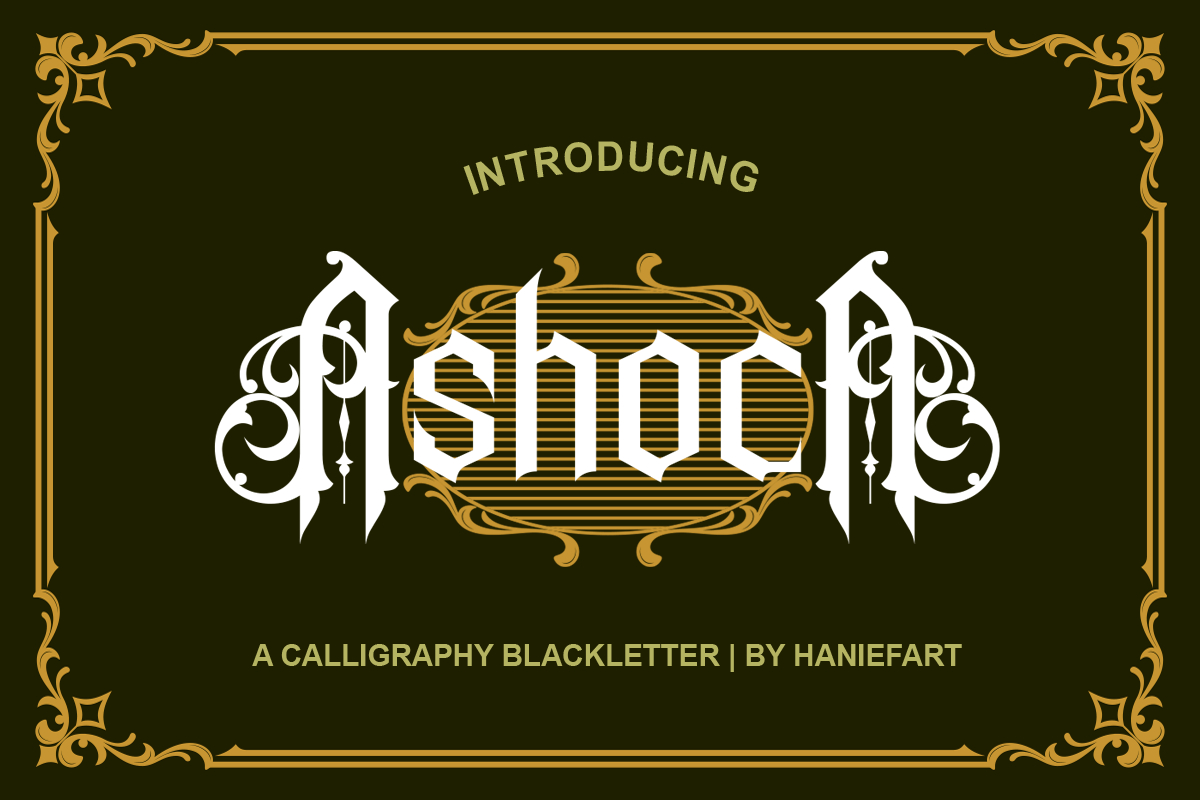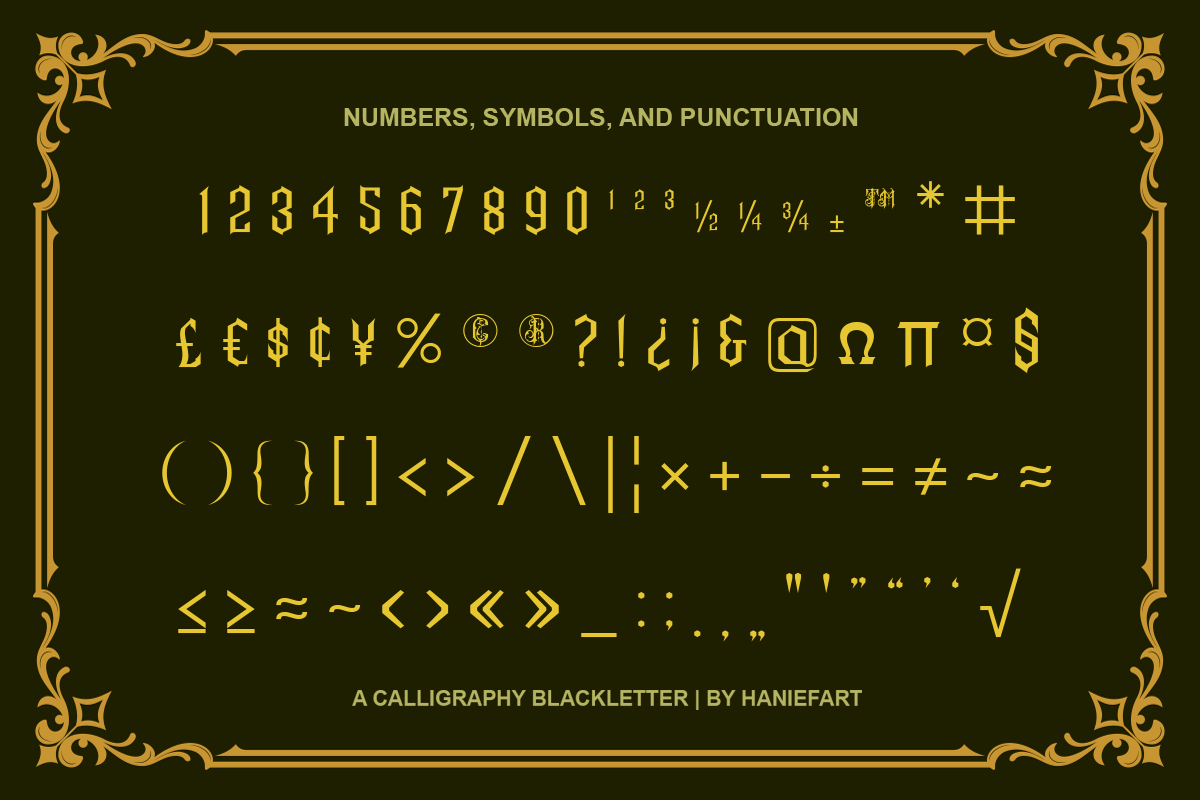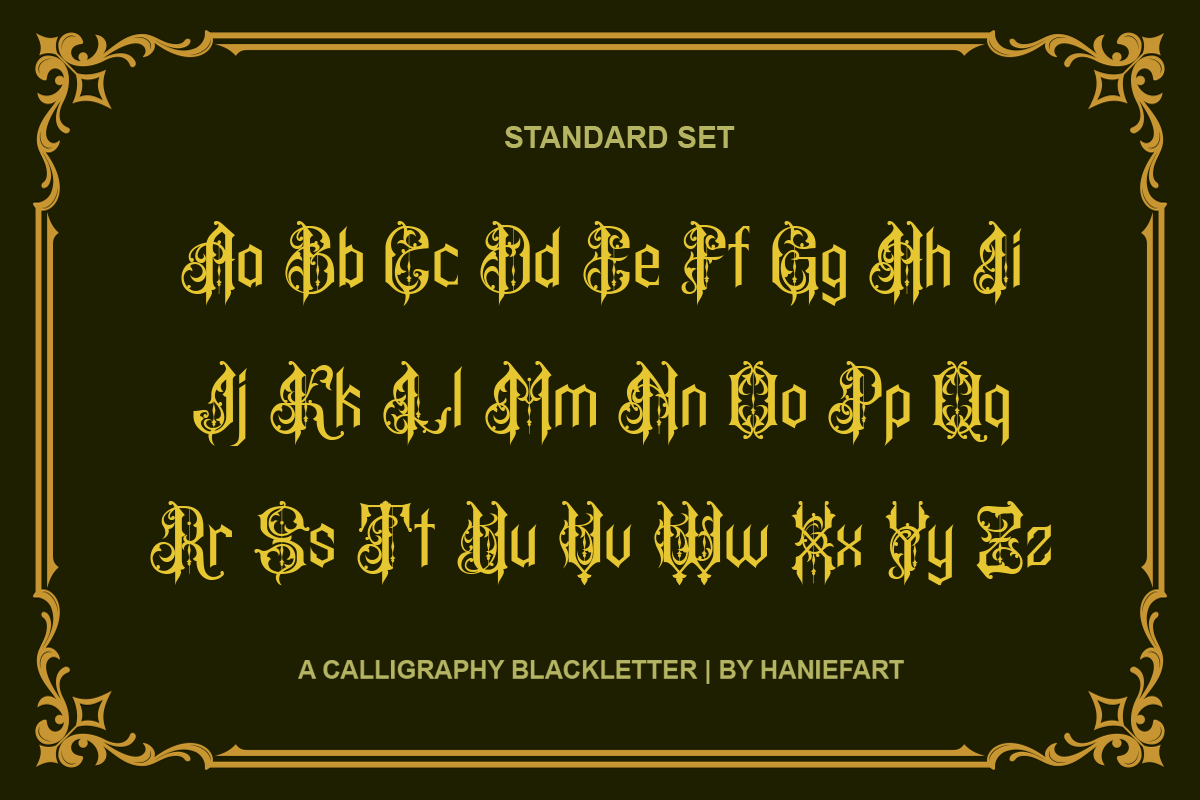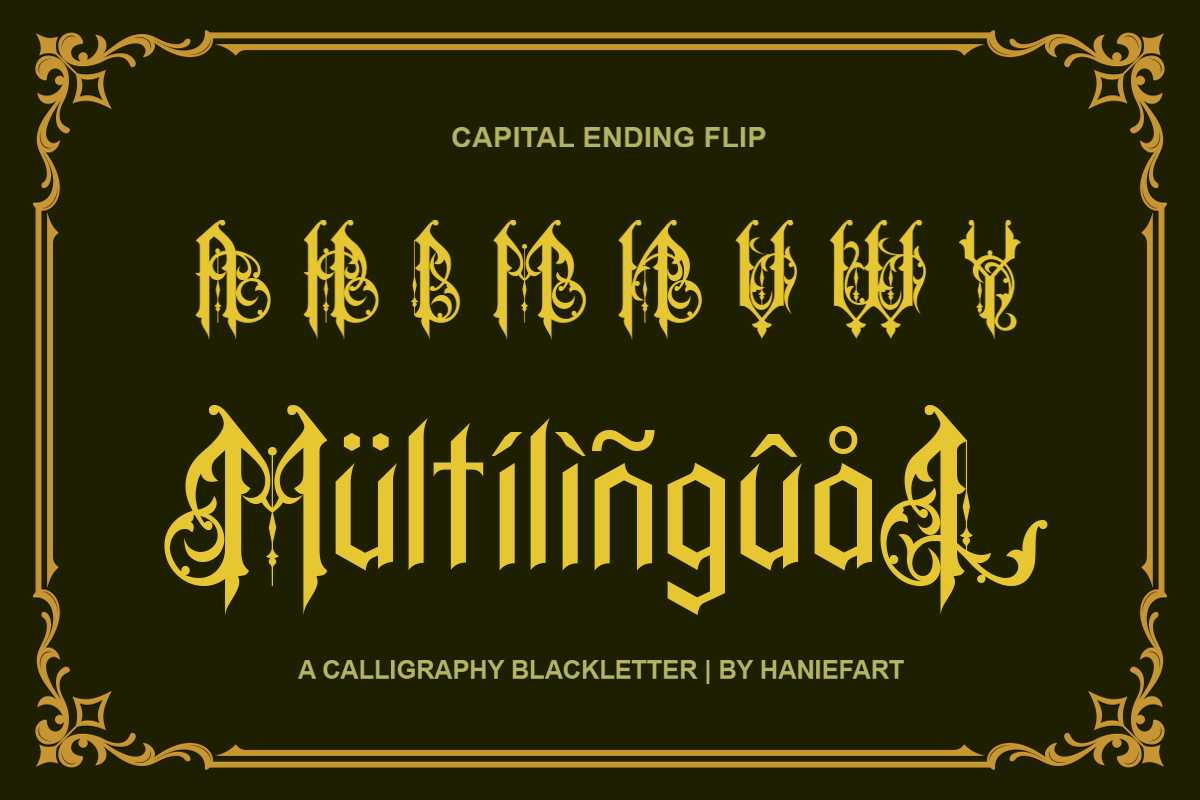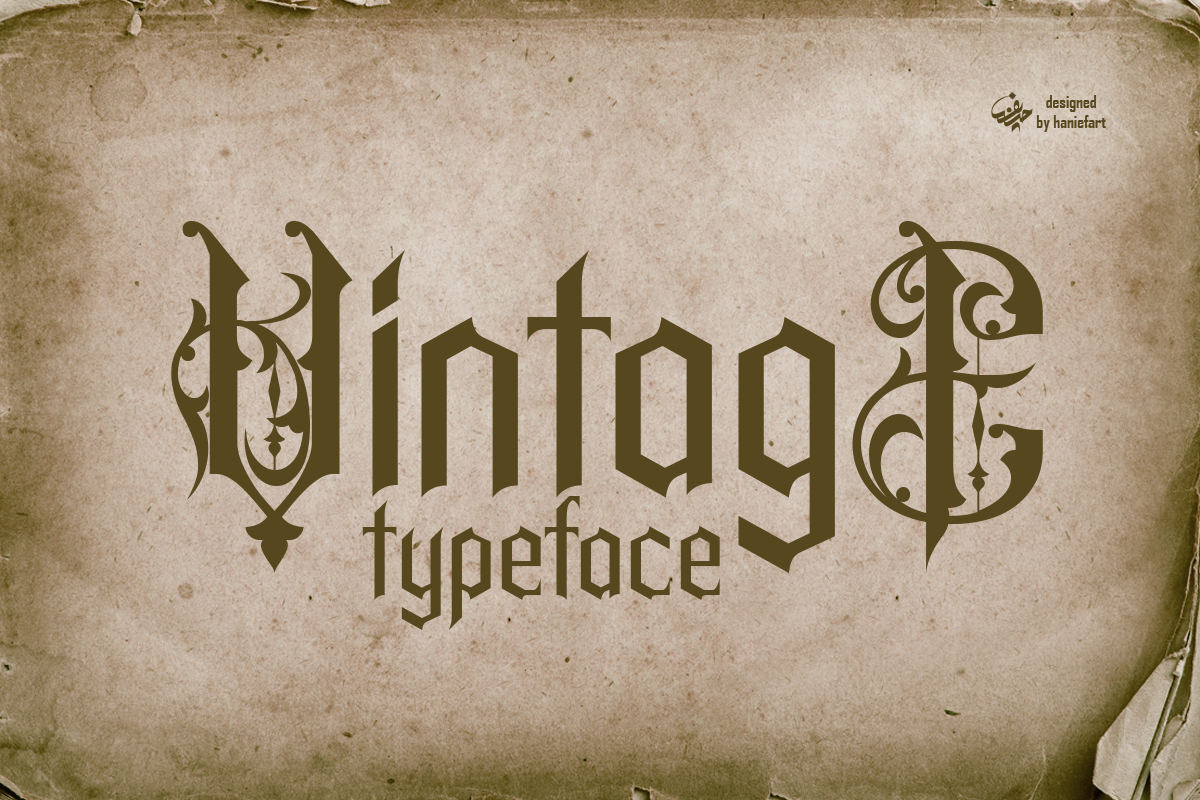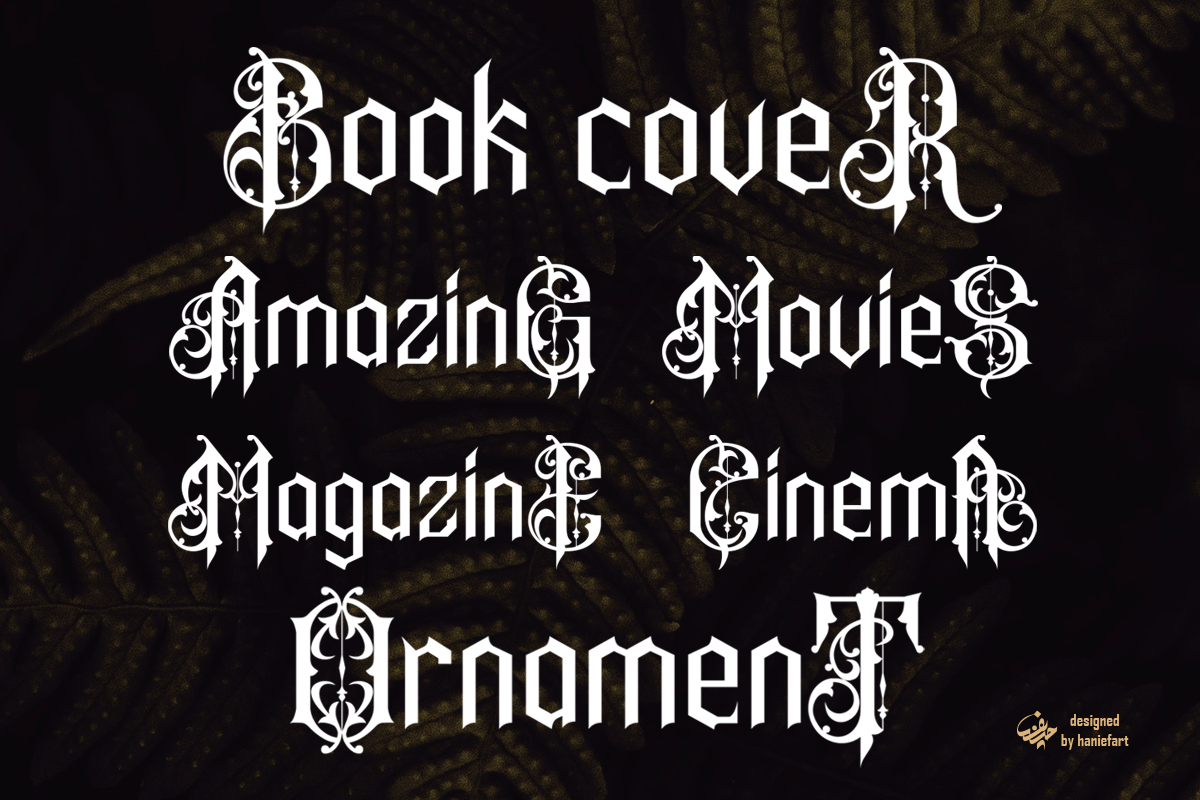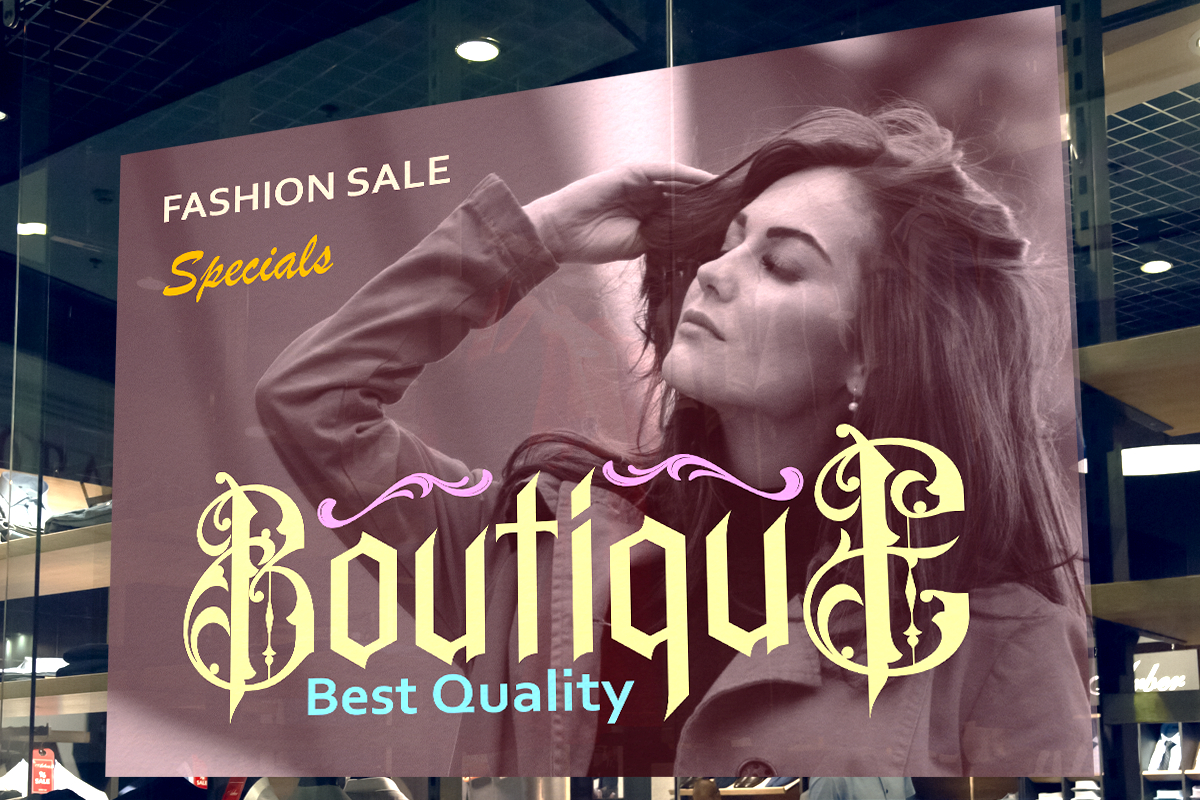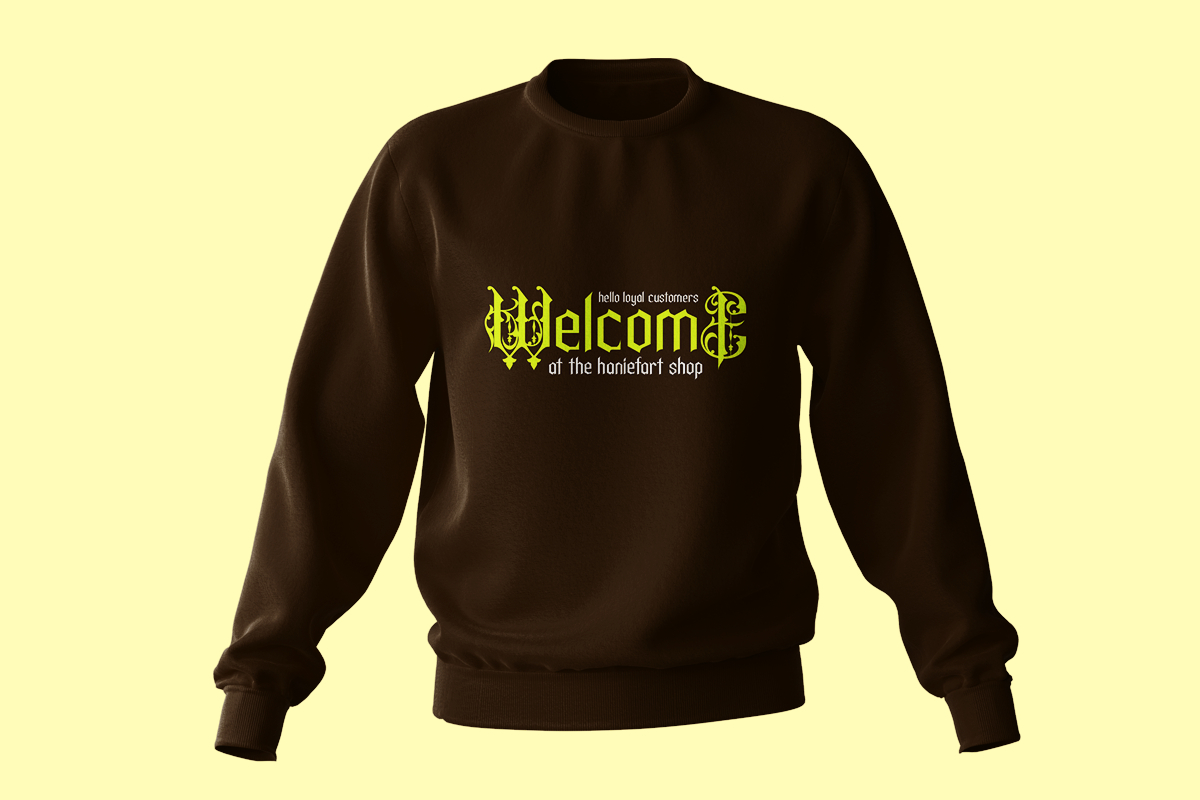
Ashoca Font
About Ashoca Font
Ashoca is a classic style blackletter font made by hand, modified with very detailed ornaments and sharp needles, so it looks elegant and beautiful, and also looks elegant and modern. Ashoca can be used for company brands, business brands, t-shirts, logos, movie titles, drink bottles and many others.